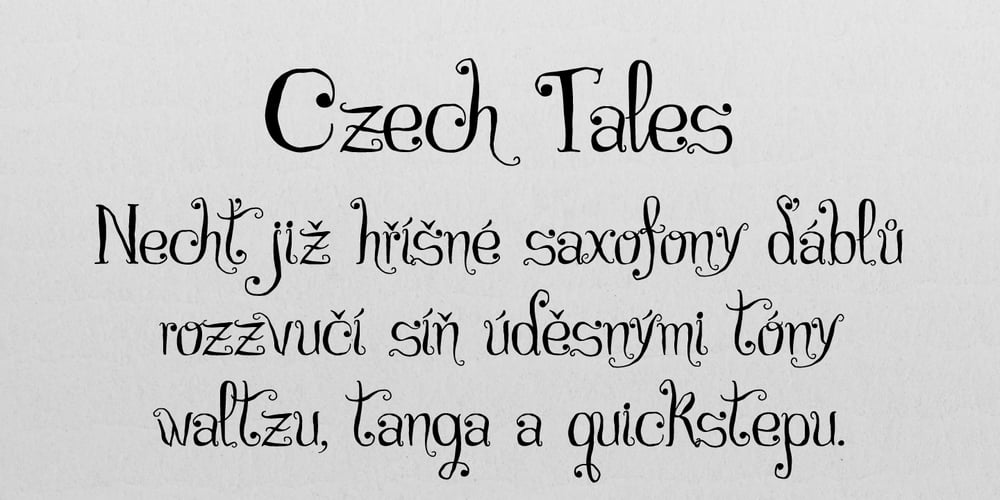
Czech Tales Font Family was designed by Gilberto Moya Perona and published by Pisto Casero. Czech Tales contains 1 styles and family package options. Czech Tales font is a fantasy curly typeface inspired by the traditional Czech fairy tales. With a wide range of accented characters it supports the Basic Latin and the Western, Central and Eastern European groups of languages. It also includes some Open Type features such as alternates and over 100 ligatures. Designed in the Czech Republic at the end of 2012.